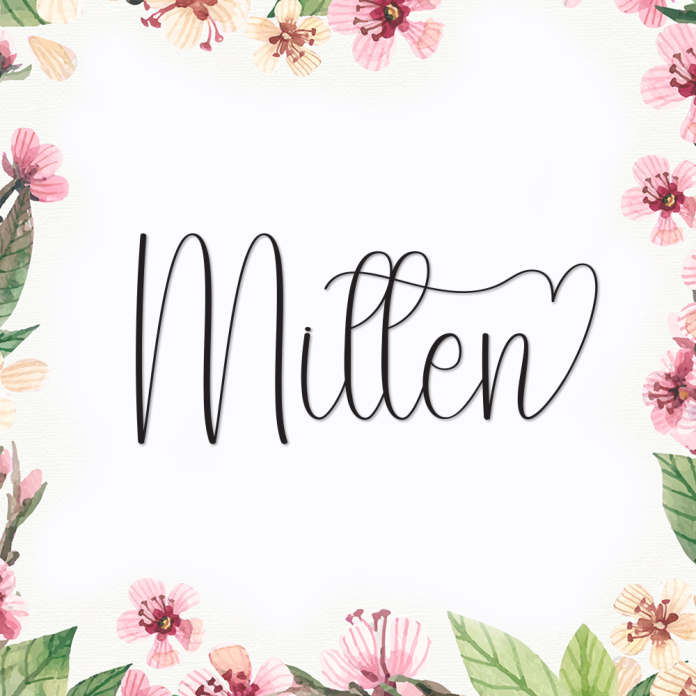
Mitten is a warm and charming handwritten font that feels like a cozy hug on a chilly day. Its smooth strokes and natural curves give your text a personal, heartfelt touch—perfect for designs that need a soft, friendly, and inviting feel.
Whether you're creating greeting cards, social media posts, branding for lifestyle products, or handwritten quotes, Mitten brings comfort and elegance in every letter.
Handwritten style with a cozy and organic flow
Soft, rounded lines for a gentle appearance
Great for invitations, packaging, and personal projects
Wrap your words in warmth with the lovely Mitten font!